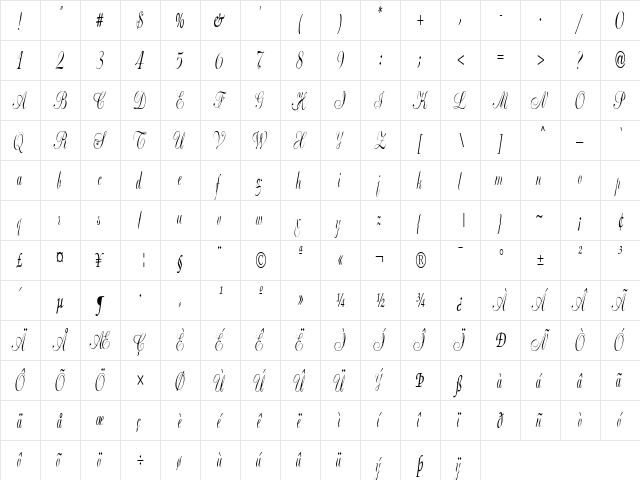
Basic Class A SupCon Regular
| Foundry | ImageLine Incorporated |
Design Context for Basic Class A SupCon Typeface
Basic Class A SupCon takes a measured approach to typography — its balanced proportions and neutral character make it a reliable workhorse for both digital and print work.